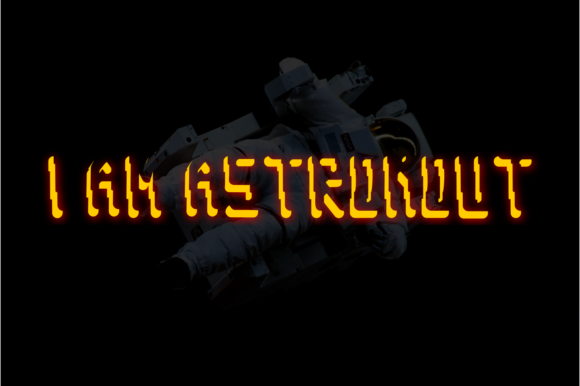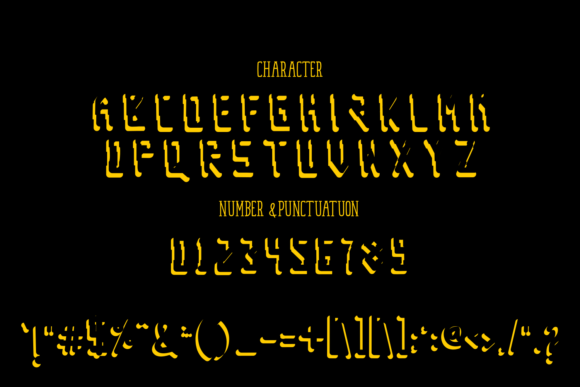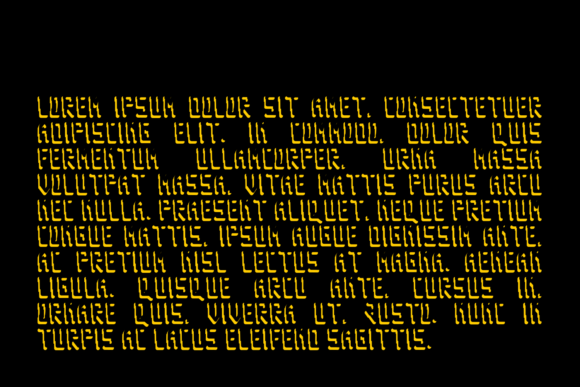
Introduction to Give Me Space Font
Give Me Space is a friendly and modern display font with a unique style.
Fall in love with its playful look & feel .